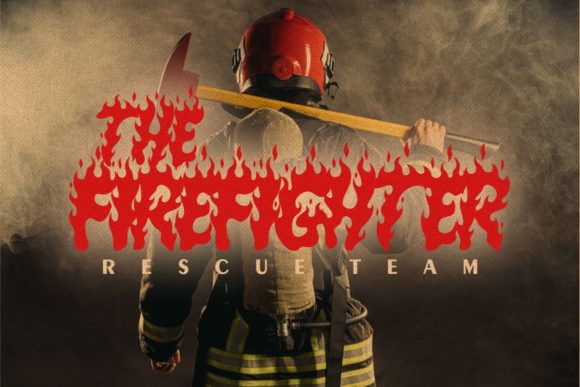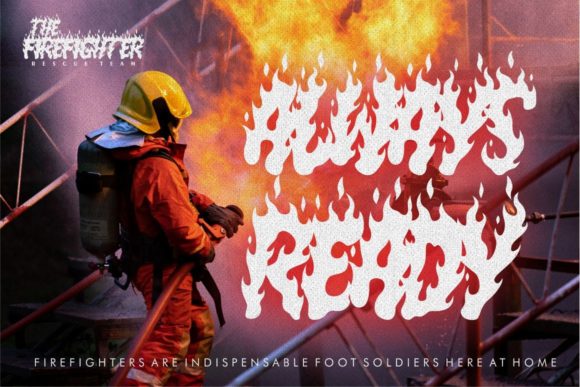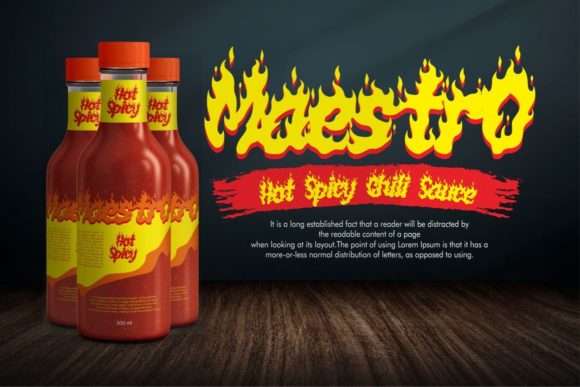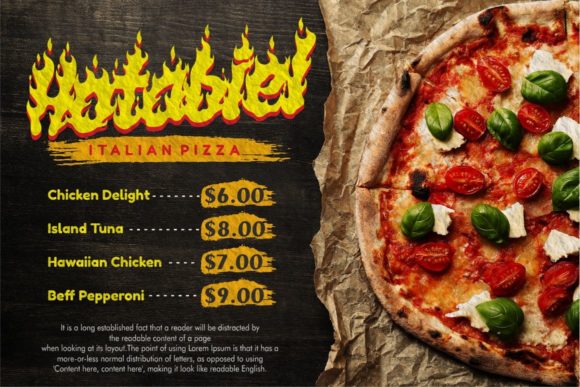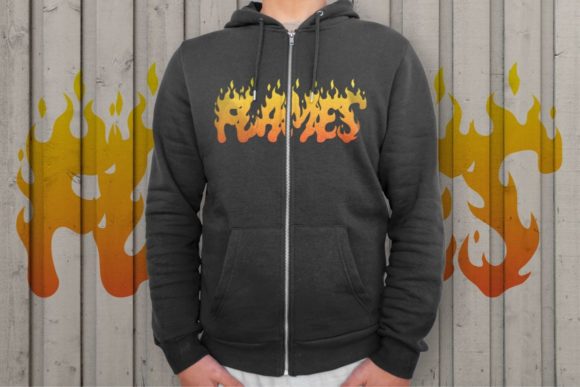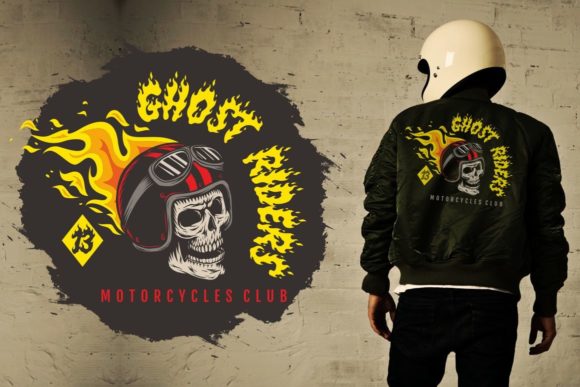
The Perfect Spark to Ignite Your Designs
There’s nothing quite like the rush of creativity that comes with discovering a new font. You’re brainstorming ideas, pouring over sketches, and finally, it hits you – the perfect spark to take your design to the next level. For many of us, it’s that moment when everything falls into place, and our vision starts to take shape.
Enter the Burning Hammer Font, a display font that’s as dramatic as it is versatile. With its unique style and PUA encoding, this font is the ultimate tool for designers looking to add a touch of sophistication and flair to their projects. Whether you’re a seasoned pro or just starting out, the Burning Hammer Font is an invaluable asset that will help you create spectacular designs that leave a lasting impression.
Burning Hammer Font Key Features
- Font Family: Burning Hammer is a unique, hand-drawn font with a bold, distressed style.
- Character Count: The font includes 255 characters, making it suitable for a wide range of applications.
- Size and Resolution: Burning Hammer is available in a single weight, but it’s scalable to various sizes and resolutions, from 72 dpi to 300 dpi.
- Unique Characteristics: The font features a distressed, hand-drawn style with rough edges and imperfections, giving it a unique, vintage look.
Burning Hammer Font Review
Overall, I think the Burning Hammer Font is a unique and attention-grabbing choice for any project. Here are some things that stand out to me:
- ✨ The bold, fiery texture of the font adds a dynamic feel to any text. It’s perfect for headlines or titles that need to grab the reader’s attention.
- ✨ The font is highly customizable, with a range of weights and styles to choose from. This makes it easy to tailor the font to fit your specific design needs.
- ✨ The Burning Hammer Font is highly legible, even at small font sizes. This makes it a great choice for projects where readability is a top priority.
- ⚠️ The font can be a bit overwhelming if used too extensively. It’s best to use it sparingly, as a accent font or for special headings.
- ⚠️ The font may not be the best choice for projects that require a more subtle or minimalist aesthetic. It’s a bold font that demands attention, so use it wisely.
Overall, I think the Burning Hammer Font is a great choice for designers who want to add a bit of edge and excitement to their projects. Just be sure to use it thoughtfully and in moderation.
Burning Hammer Font: A Practical Application Guide
Use the Burning Hammer font sparingly to add emphasis and visual interest to your design. Pair it with a clean, sans-serif font to create a balanced and readable design.
The Burning Hammer font is ideal for:
- Rock band logos and merchandise
- Heavy metal music branding
- Edgy, industrial-style designs